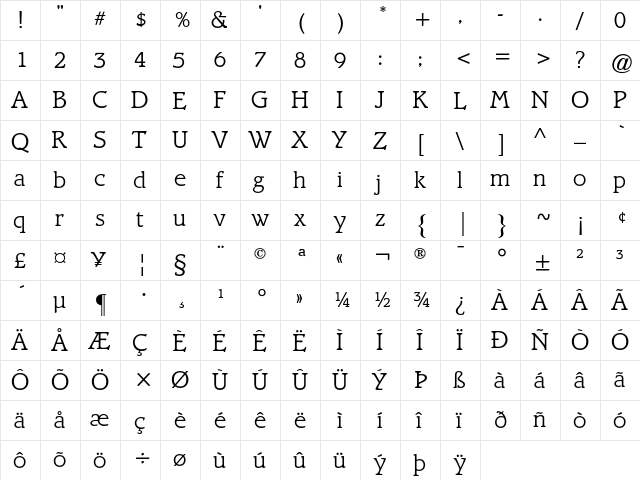
Bramley AT Light Regular
Design Context for Bramley AT Light Typeface
Bramley AT Light offers clean, dependable letterforms without strong stylistic allegiance, making it a practical choice for designers who need flexibility. The delicate stroke weight brings airiness and refinement to layouts.